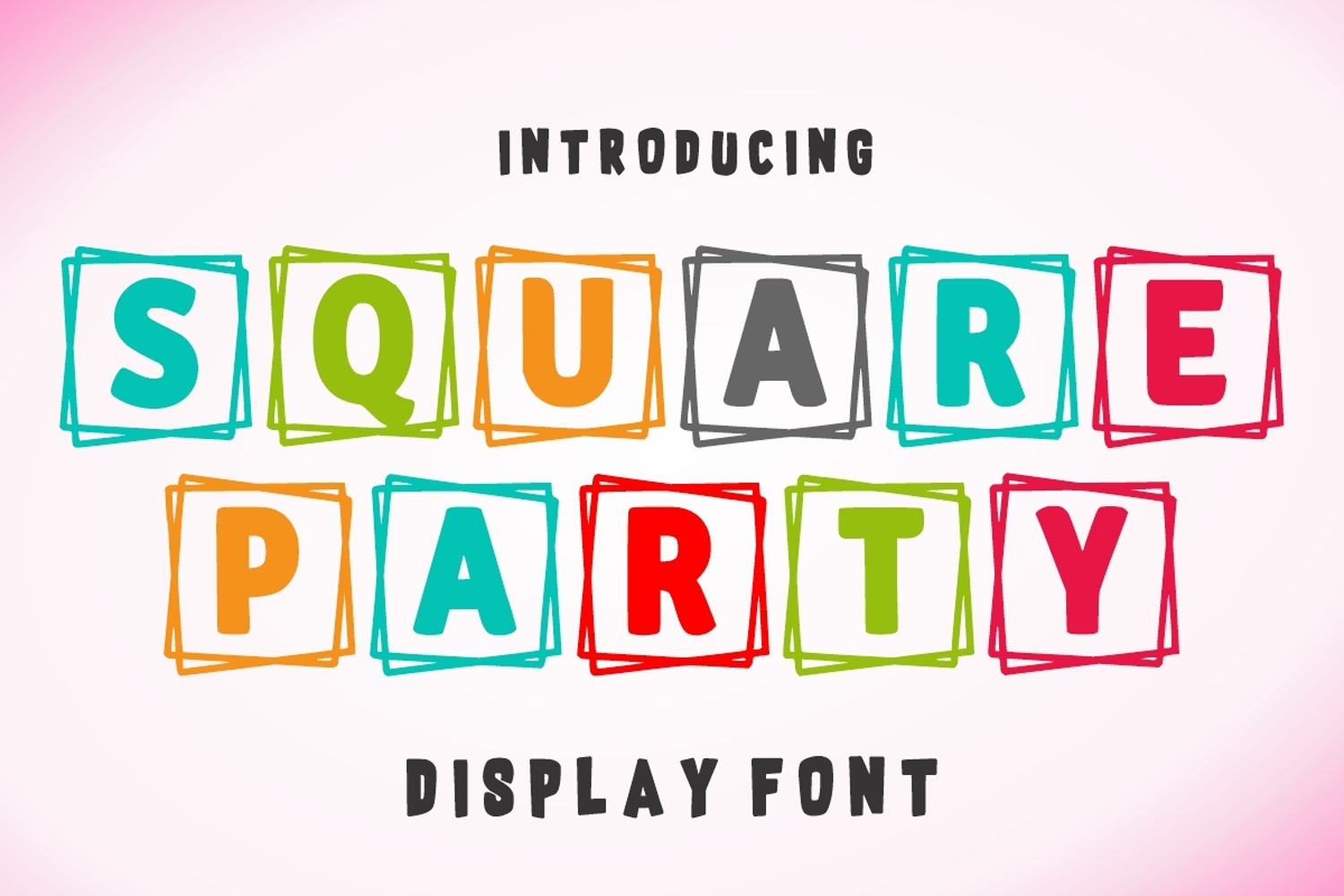
Square Party
Square Party is a cool and fun decorative font with frames around each letter. Add it to each of your promotion, price tag, party invitation, banner, gathering or pretty much any design that requires a touch of youth and joy.